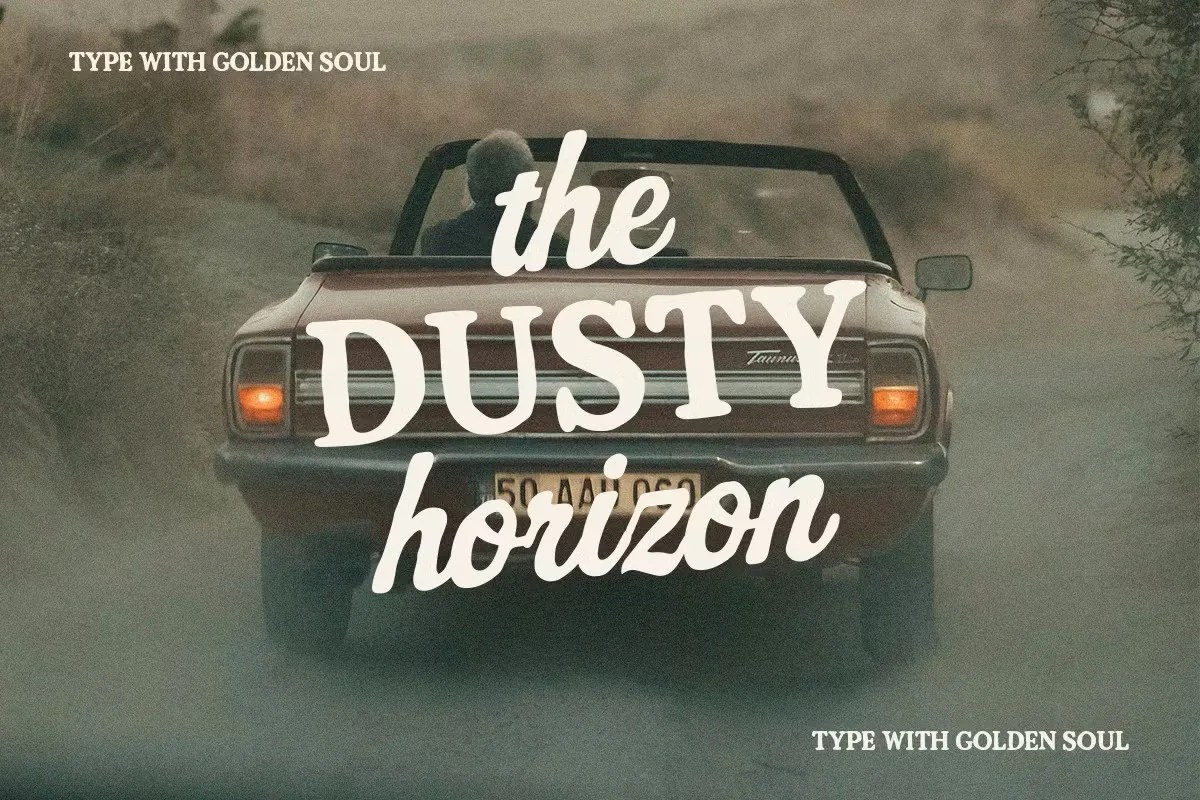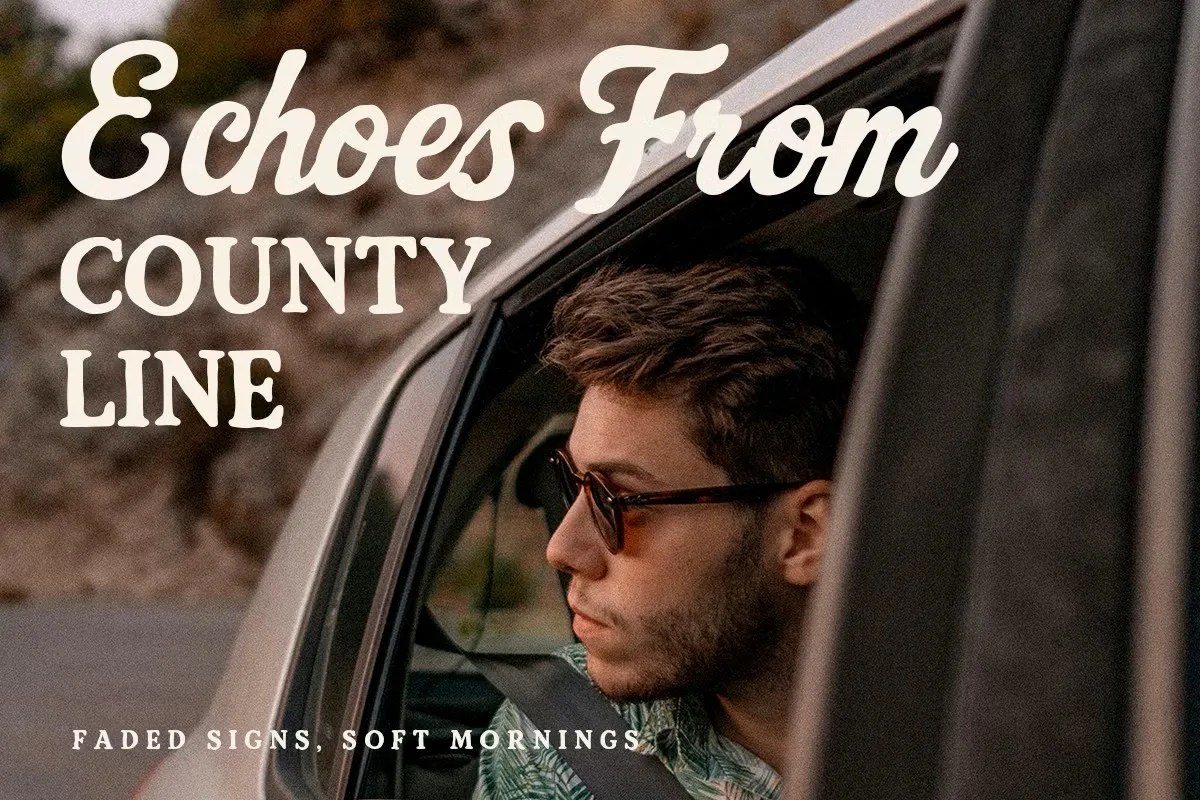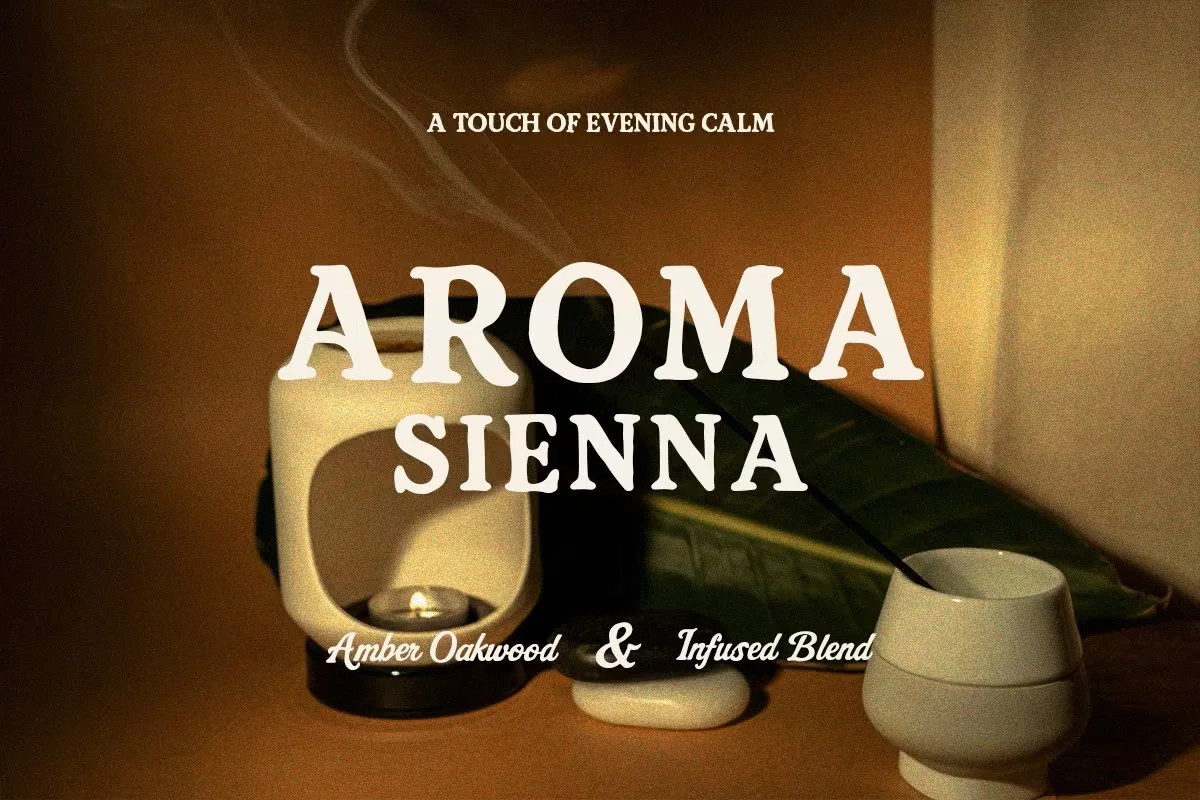
Sundown Gazette by Creacy Studio is a charming retro script font that captures the nostalgic spirit of vintage lettering with a modern twist. Featuring smooth curves and flowing strokes, this typeface brings warmth and personality to any design.
Perfect for logos, posters, branding, invitations, signage, and social media graphics, Sundown Gazette is versatile enough to work in both casual and elegant settings. Its hand-drawn aesthetic makes it an excellent choice for projects that need a touch of authentic retro flair.
• Retro-inspired script style
• Elegant curves with natural flow
• Great for logos and branding
• Ideal for invitations & posters
• Perfect for retro-inspired packaging
• Stylish for quotes & apparel design
• Easy-to-read with unique personality
Sundown Gazette